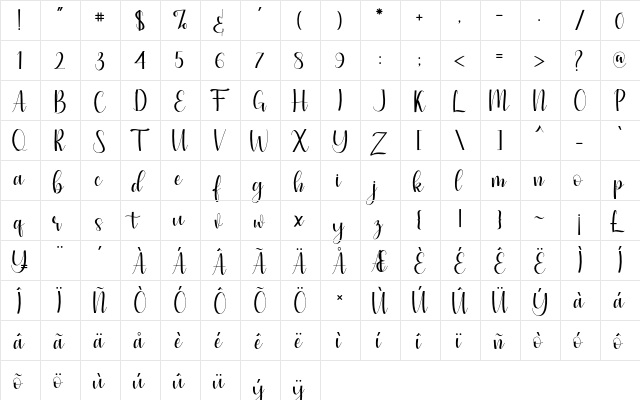
Simple Script Regular
| Foundry | Zulkhairilettering |
| Designer | Zulkhairilettering |
Design Context for Simple Script Typeface
Simple Script flows with the natural rhythm of handwritten lettering, making it ideal for designs that call for warmth and personal expression.
Font Pairing: Combine Simple Script with a simple geometric sans for maximum contrast — the tension between flowing curves and clean structure is a classic typographic pairing.
Pro Tip: Pair Simple Script with a clean sans-serif for supporting text. The contrast between fluid script and geometric structure creates an elegant typographic hierarchy.